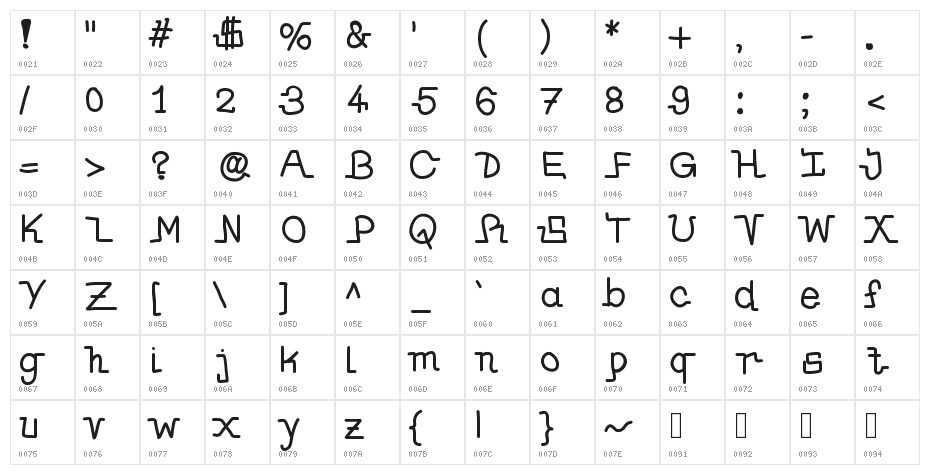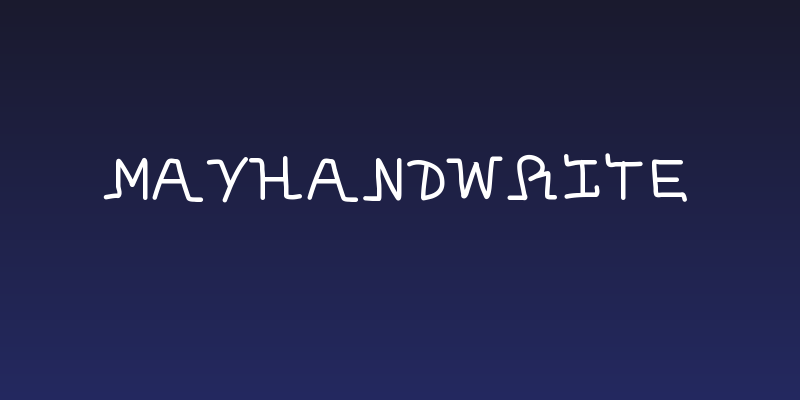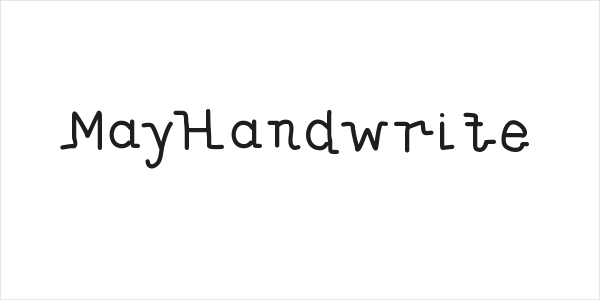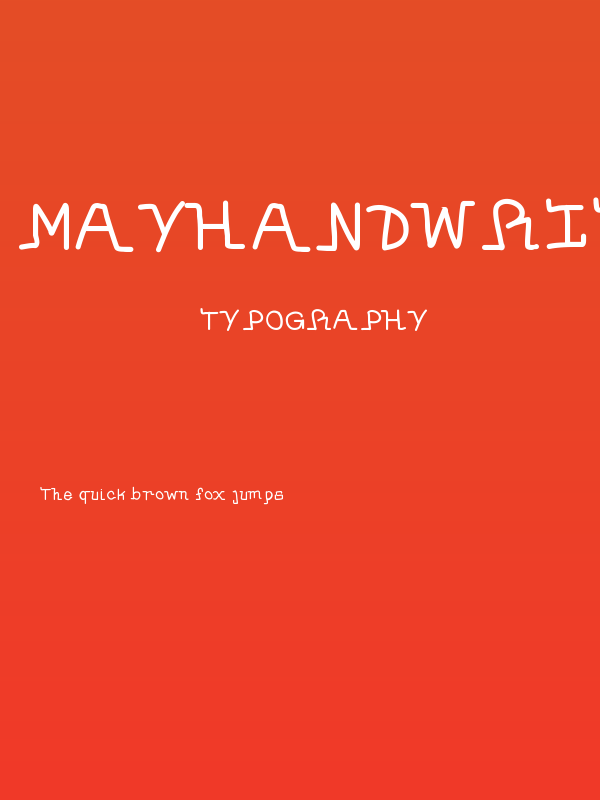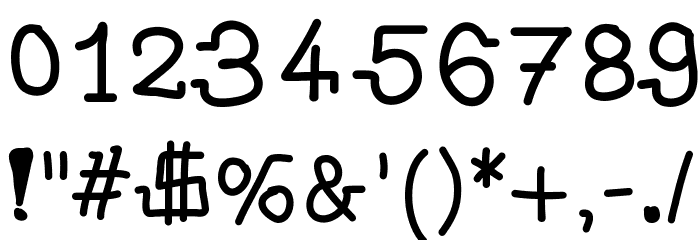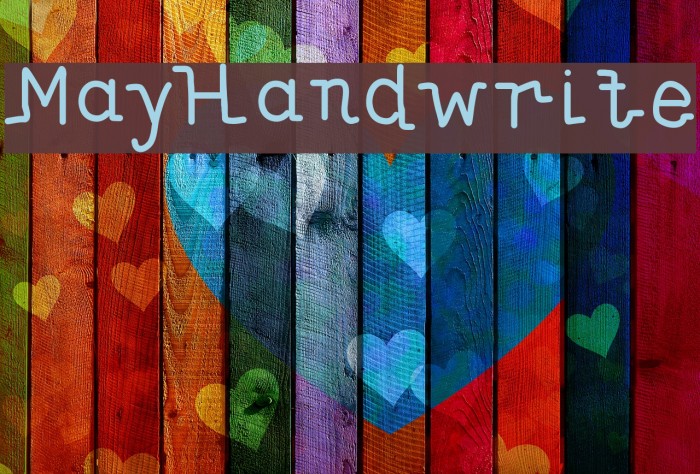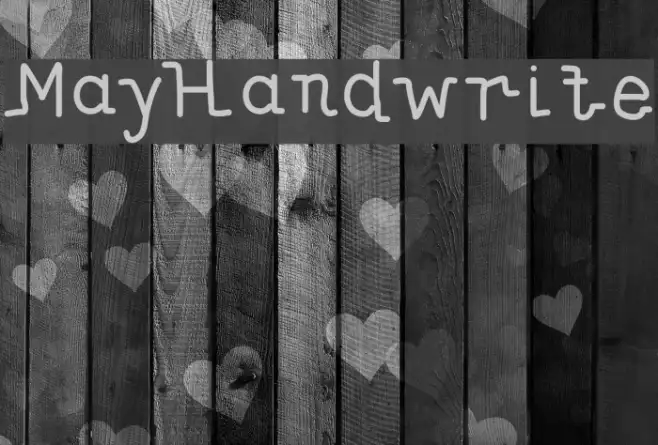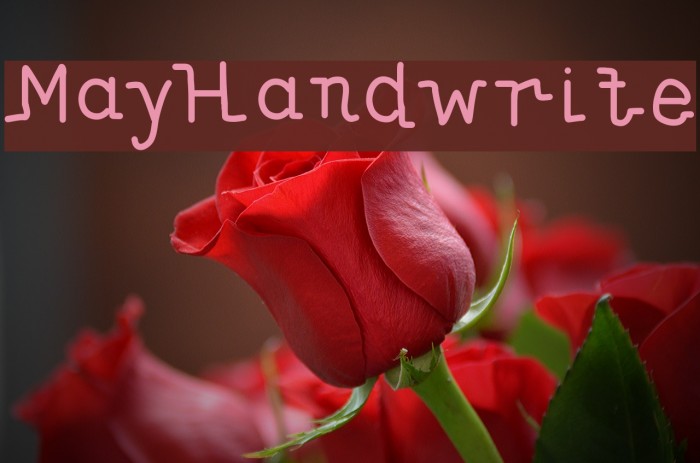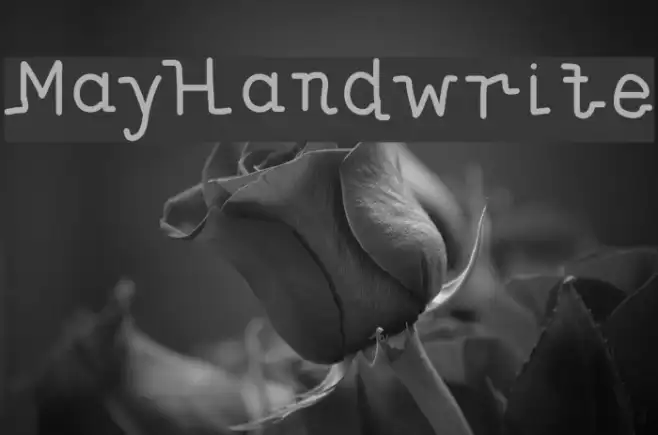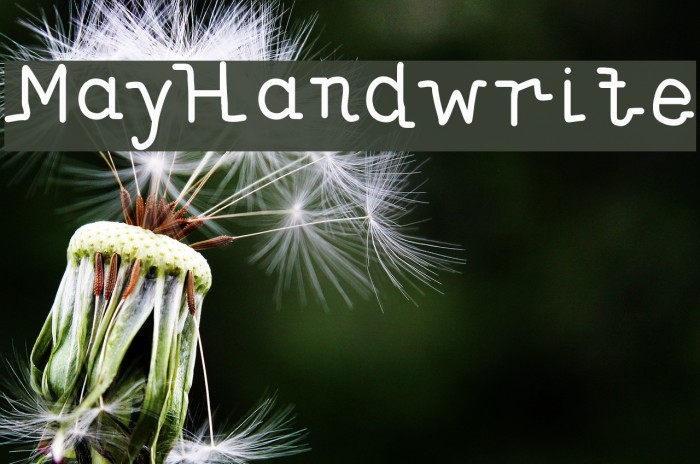
MayHandwrite Font
MayHandwrite Description
This playful and quirky font features a handwritten style with a unique twist. Each character is crafted with a slightly irregular shape, giving it a casual and friendly appearance. The uppercase letters are bold and distinct, while the lowercase letters maintain a consistent flow with rounded edges. Numbers and special characters are designed to match the overall aesthetic, ensuring a cohesive look across all text. The font's informal style makes it ideal for projects that require a personal touch, such as greeting cards, invitations, or children's book illustrations. Its legibility and charm make it suitable for both digital and print media.
| Use Case | Headlines, Invitations, Greeting Cards |
| Proposed Projects | Ideal for greeting cards, invitations, children's books, and playful branding. |